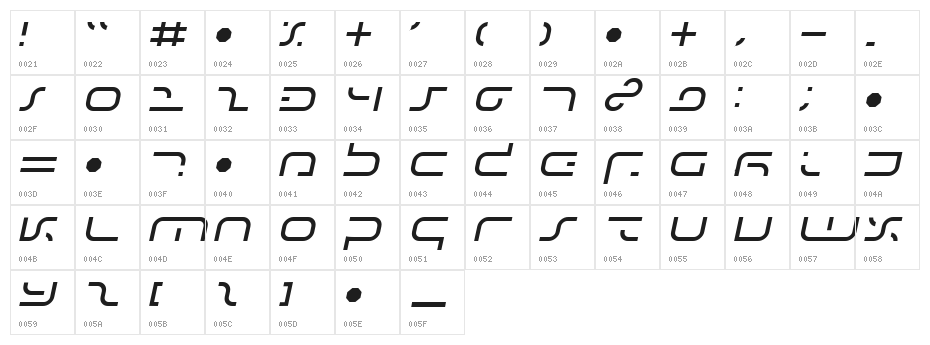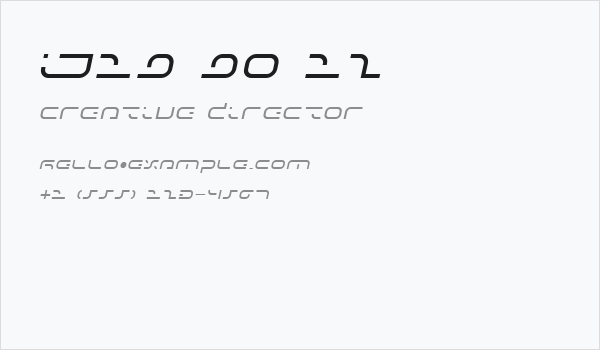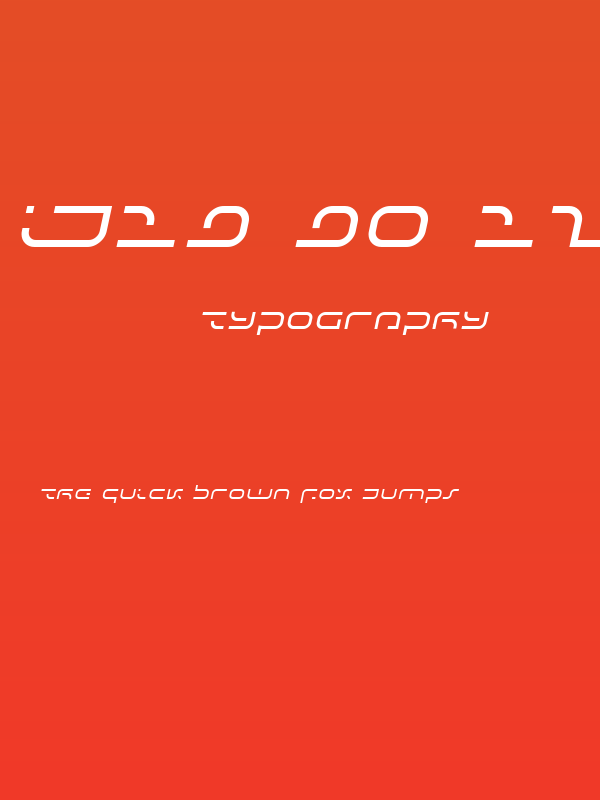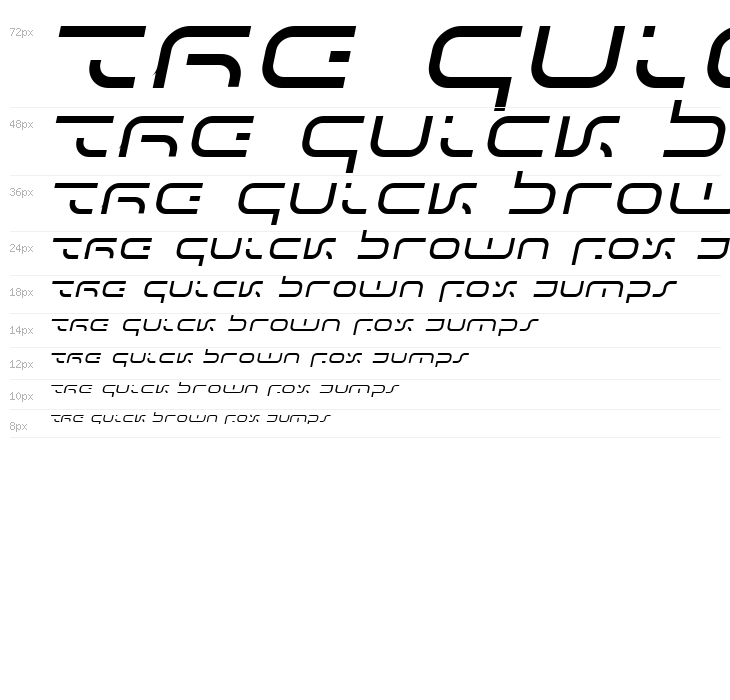
IJ19 90 12 Font
IJ19 90 12 Description
This font features a futuristic and geometric style with a distinctively modern appearance. The characters are composed of clean lines and sharp angles, giving them a sleek and contemporary look. The uppercase and lowercase letters maintain a consistent design, with rounded edges and a uniform stroke width that adds to the modern aesthetic. The numerals and special characters follow the same design principles, ensuring a cohesive appearance across all glyphs. This font is ideal for projects that require a cutting-edge and innovative feel, such as technology branding, sci-fi themes, or modern digital interfaces.
| Overall Style | Futuristic, Geometric |
| Use Case | Headlines, Logos, Digital Interfaces |
| Proposed Projects | Ideal for technology branding, sci-fi themes, modern digital interfaces, and innovative design projects. |